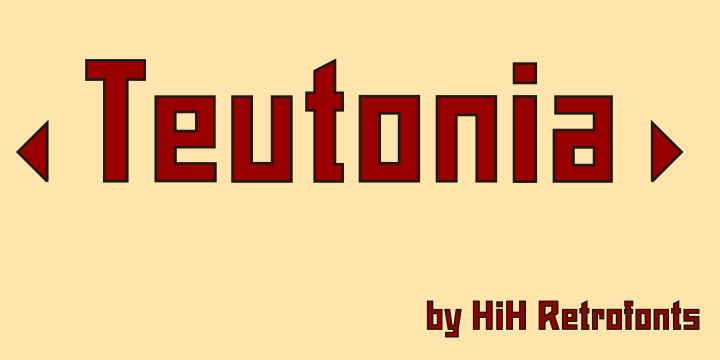
How can Teutonia be called “Art Nouveau” with all those straight lines? It seems like a contradiction. In fact, however, Art Nouveau embraces a rather wide variety of stylistic approaches. Five well-known examples in the field of architecture serve to illustrate the range of diversity in Art Nouveau: Saarinen’s Helsinki Railroad Station, Hoffman’s Palais Stocklet in Brussels, Lechner’s Museum of Applied Arts on Budapest, Mackintosh’s Glasgow School of Art and Gaudi’s Sagrada Familia in Barcelona. Only the last fits comfortably within the common perception of Art Nouveau. Whereas Gaudi would avoid the straight line as much as possible, Macintosh seemed to employ it as much as possible. The uniting factor is that they all represent “new art” -- an attempt to look things differently than the previous generation. Even when they draw on the past -- e.g. Lechner in the use of traditional Hungarian folk art -- the totality of the expression in new. Teutonia clearly shows its blackletter roots in the ‘D’ and the ‘M.’ More…
Roos & Junge of Offenbach am Main in Germany produced Teutonia in a "back-to-basics" effort that has seen many quite similar attempts in the field of topography. In 1883, Baltimore Type Foundry released its Geometric series. In 1910, Geza Farago in Budapest used a similar letter design on a Tungsram light bulb poster. In 1919 Theo van Doesburg, a founder with Mondrian and others of the De Stijl movement, designed an alphabet using rectangles only -- no diagonals. In 1923 Joost Schmidt at Bauhaus in Weimer took the same approach for a Constructivist exhibit poster. The 1996 Agfatype Collection catalog lists a Geometric in light, bold and italic that is very close to the old Baltimore version. Even though none of these designs took the world by storm, they all made a contribution to our understanding of letterforms and how we use them.
Teutonia is compact and surprisingly readable at 12 points in print, but does not do as well on the screen. Extra leading is suggested. Four ligatures are supplied: ch, ck, sch and tz. The numerals are tabular.